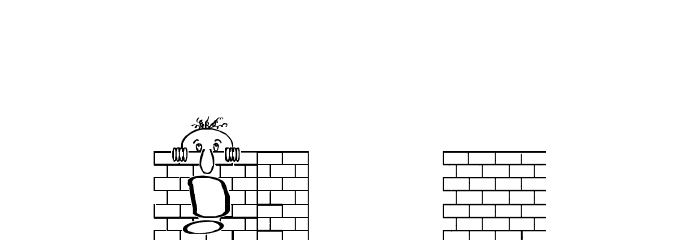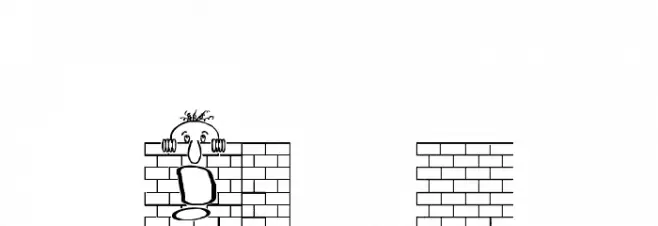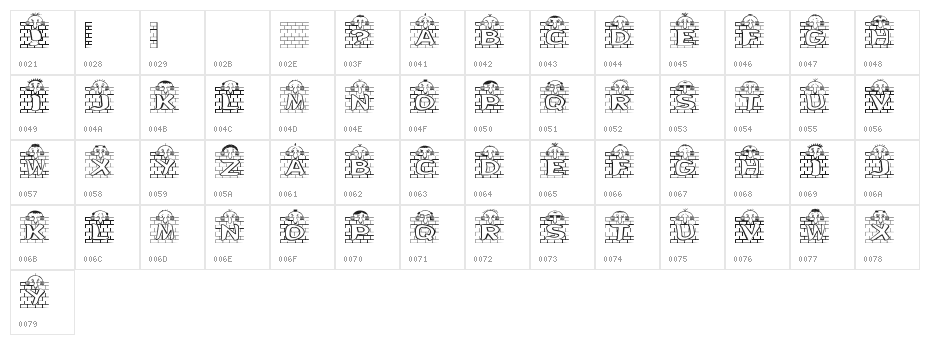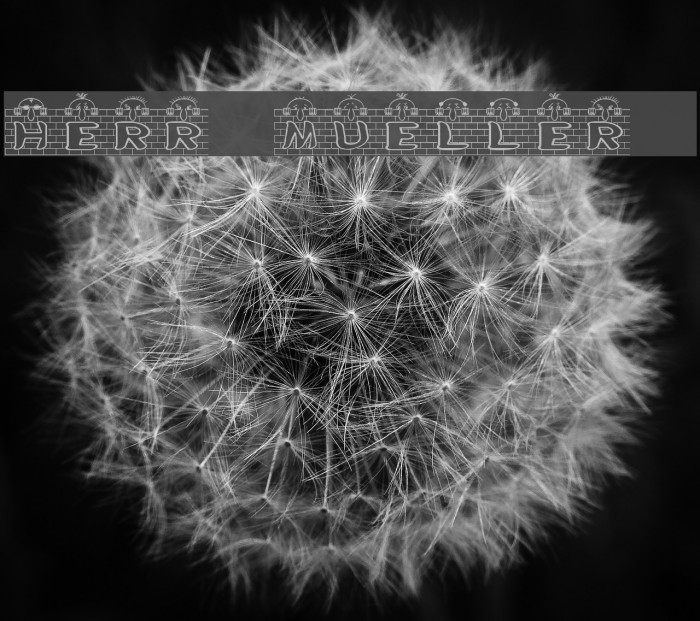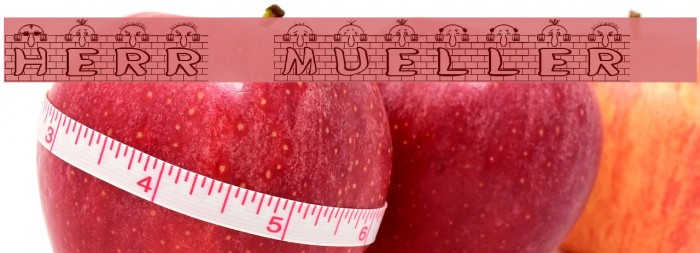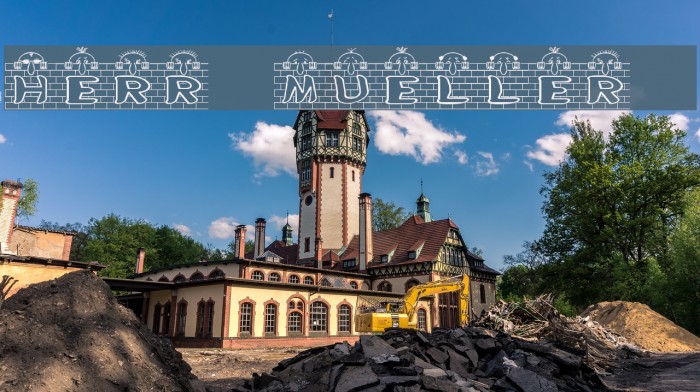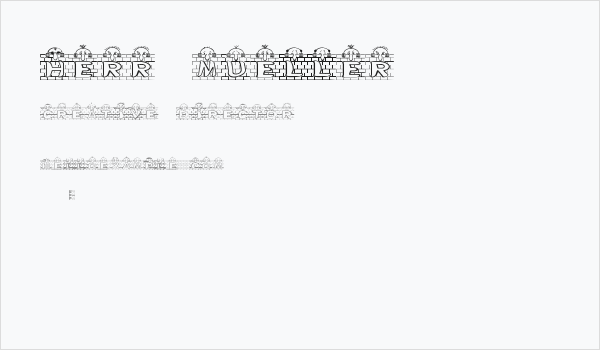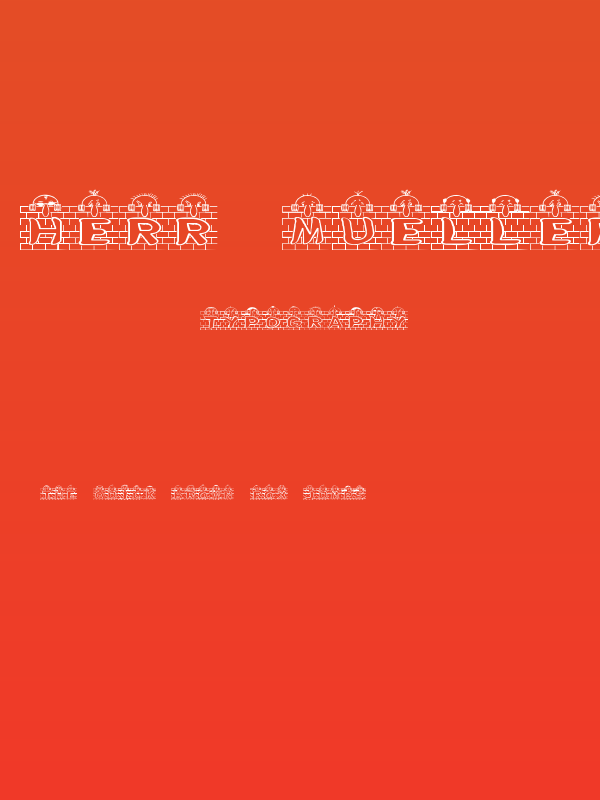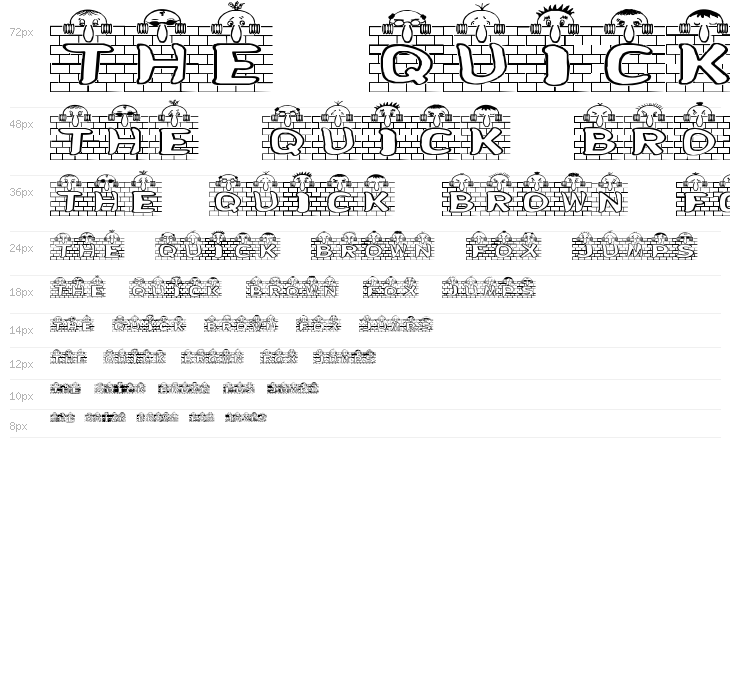
Herr Mueller 2 Font
Herr Mueller 2 Description
This whimsical and playful font features characters peeking over a brick wall, each letter integrated into the wall design. The uppercase letters are bold and outlined, with a cartoonish style that adds a sense of fun and creativity. The characters above the letters have unique expressions and hairstyles, enhancing the font's playful nature. This design is ideal for projects that require a lighthearted and humorous touch, making it suitable for children's books, comic strips, or playful branding materials.
Proposed ProjectsIdeal for children's books, comic strips, playful branding, and creative posters.